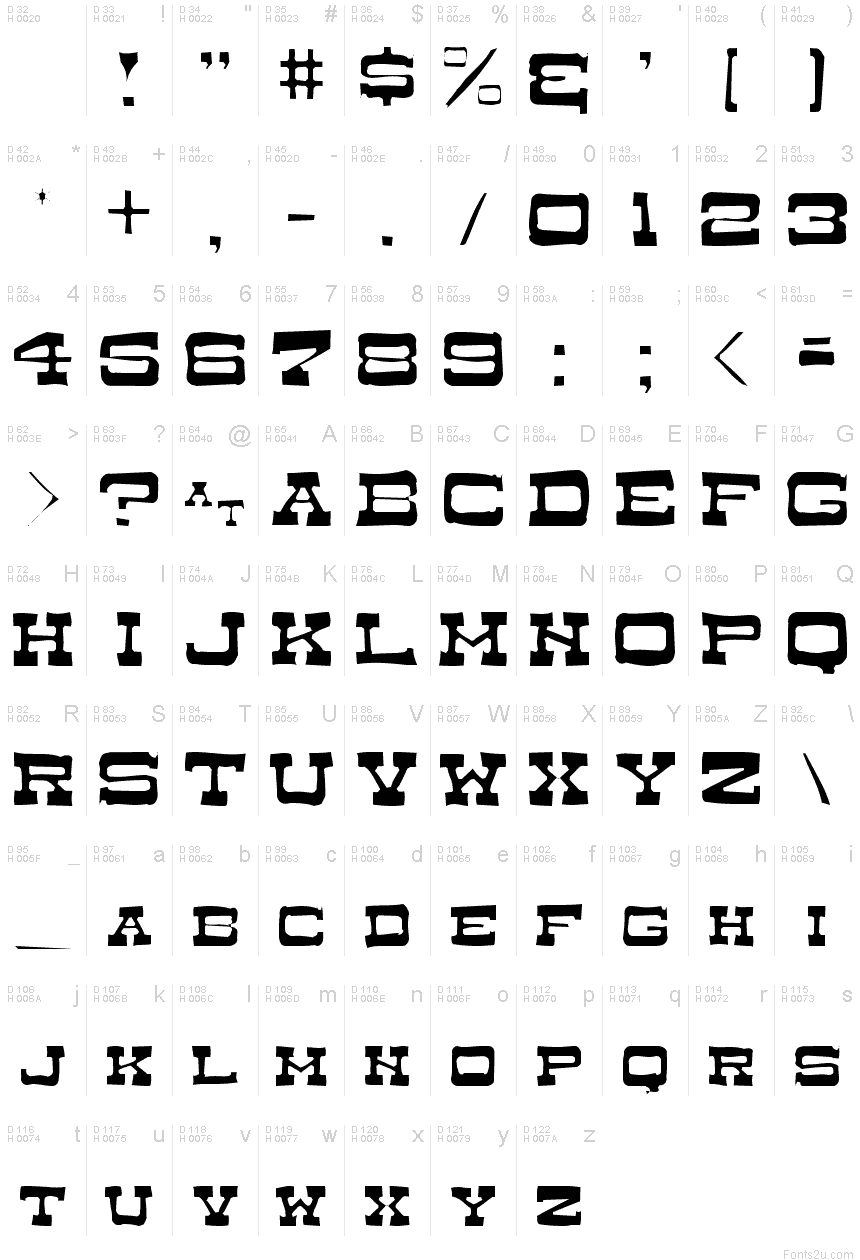
Dry Goods Antique SmC JL
Dry Goods Antique SmC JL font by Jeffrey N. Levine is a free Western display typeface that feels like it’s been pulled straight off a sun-faded storefront sign. Chunky letterforms, rough ink edges, and slightly slumped shapes give it a weathered, woodtype grit that reads loud and unmistakable. It has that dusty, hand-printed texture that instantly sets a scene of creaking saloon doors and canvas tent markets.
Using Dry Goods Antique SmC JL, you can brand barbecue joints, beer labels, vintage-style posters, escape-room graphics, themed menus, event flyers, and game titles with authentic frontier character. This free font shines in big, bold settings where its irregular texture can breathe. Pair it with a clean, narrow sans serif set small for supporting text to keep your layouts readable while the Western voice stays front and center.